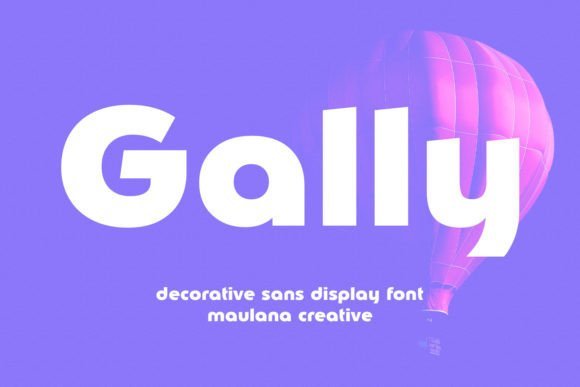
Unlock Your Creativity with the Gally Font
Have you ever stared at a blank page, feeling like your ideas are stuck in a creative rut? You’re not alone. Sometimes all it takes is the right tool to spark inspiration. For designers, the perfect font can be the difference between a good project and a great one.
Enter the Gally Font, a modern decorative sans display font that’s designed to help you stand out from the crowd. With its bold strokes and fun character, this versatile font is perfect for a wide range of applications, from logo design to social media posts, movie titles, and more. What’s more, the Gally Font supports over 100 languages, making it an invaluable resource for designers working on international projects.
Gally Font Key Features
- Unique Characteristics: Gally Font features a unique blend of modern and vintage elements, with intricate details and subtle flair, making it perfect for creative and artistic projects.
- Font Style: Gally Font comes in two main styles: Regular and Bold, with multiple weights and italics available for added versatility.
Gally Font Review
Gally Font is a clean and modern sans-serif typeface that has some great features. ✨ Its simplicity and minimalistic design make it suitable for a wide range of applications, from digital interfaces to print materials. The font is highly legible and can easily convey the message without any distractions.
Here are some of the things that I liked about Gally Font:
- Highly legible and clear even at smaller font sizes
- Well-suited for digital interfaces, print materials, and presentations
- Available in a range of weights and styles
- Great for creating a clean and modern look
However, there are some limitations to Gally Font as well. ⚠️ It may not be the best choice for applications that require a lot of personality or flair. Additionally, some users may find the font to be too plain or boring. It’s also worth noting that the font may not be suitable for use in academic or technical writing, as it may not provide enough emphasis on specific terms or concepts.
Overall, I think Gally Font is a solid choice for designers who want a clean and modern typeface. While it may have some limitations, its simplicity and legibility make it a great option for a wide range of applications.
Tips for Getting the Most Out of Gally Font
For optimal results, use Gally Font in bold or italic styles to add emphasis to your text.
Experiment with different font sizes and colors to create visually appealing designs.
Gally Font is ideal for creating eye-catching headlines, titles, and logos.
It’s also suitable for use in brochures, flyers, and other marketing materials where a unique and stylish font is desired.
Alternatives to Gally Font for Designers
Compared to Gally Font, Open Sans has a more geometric and clean design, making it ideal for digital interfaces. While Gally Font has a more rounded and friendly feel, Open Sans is more versatile and works well in various contexts.